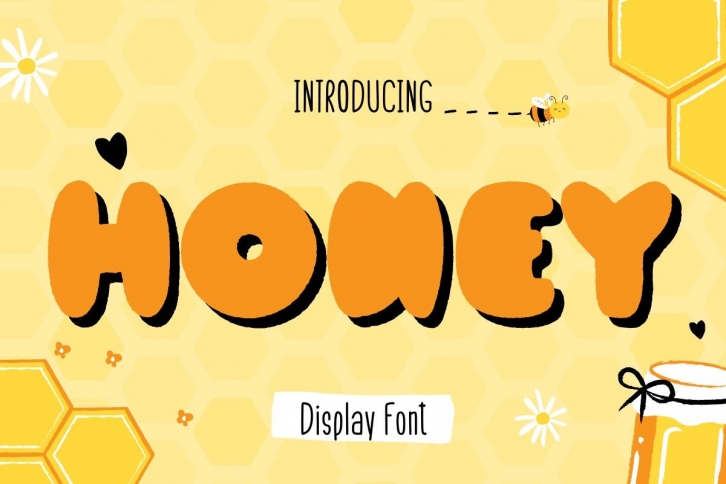
Honey is cute and fun display handwritten font. It has an informal style with a casual vibe, and it is a good choice for each of the creations, mug designs, shirts, hats, tote bags, card making, wall art, interior prints, and various other creations. and more!